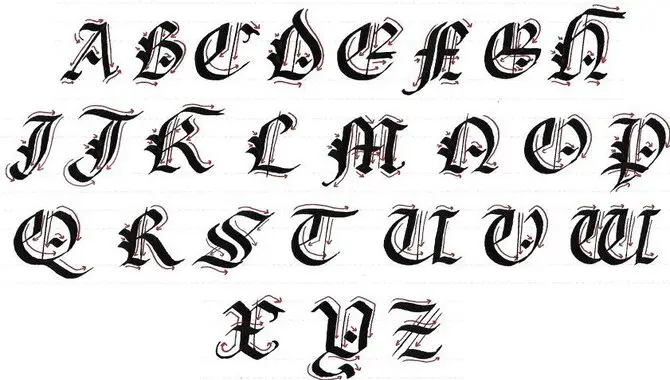
If you’re looking to add some edge and old-world charm to your designs, Gothic Fraktur Fonts might be what you need. These unique fonts are popular among designers and artists for their bold, ornate, and dramatic feel.
They are popular in various projects, from branding to editorial design, posters, and tattoos. Here we will explore why Gothic fonts are a great addition to your designs and showcase some of our top picks for Gothic Fraktur Fonts that can make your typography stand out.
We’ll also provide tips on optimizing these fonts in your designs and share resources for downloading and using these fonts. Get ready to add a touch of elegance, history, and drama to your designs with these gorgeous Gothic Fraktur Fonts.
Why Use Gothic Fonts?
Blackletter or Gothic fonts are a great way to add an edgy and interesting touch to any design. While “Gothic” and “Old English” are often used to describe Blackletter script, these terms are inaccurate. Blackletter calligraphy has a rich and fascinating history dating back to 1200 BC.
Blackletter script was influenced by the Gothic architectural style of many churches and cathedrals in the Middle Ages. Blackletter fonts are popular in punk, street art, and heavy metal design but are also becoming more common in mainstream design.
The blend of medieval influence and modern rebellion adds a unique touch to designs, making them stand out. Using Gothic fonts for design usually involves creativity and requires the design to adjust according to the font to get the best possible outcome. With a wide range of available options, you will find the perfect fit for your next project.
Gothic Fraktur Fonts You Need
Fraktur is a typeface that originated in the 16th century to update the old textual hands. Fraktur’s unique Gothic style makes it perfect for various designs, such as logos, posters, and brochures. The font family includes regular and bold variations, perfect for highlighting headers and important text.
Foundry Blonde Fraktur is a free interpretation of the Gothic theme and is an excellent fit for advertising. However, it’s important to note that the Fraktur typeface is not a built-in Powerpoint font. And it will need to be downloaded and installed to be used. Fraktur is easy to read, and its unique style can add a touch of Gothic elegance to any design project.
Fonts For Headlines
The creators developed Gothic Fraktur fonts as a more legible alternative to textual hands in the 16th century, and they have a rich history. While Fraktur is not commonly used for simple text, it is still popular for decorative typesetting, especially for headlines and pub signs.
Blonde Fraktur is a Gothic-themed Cyrillic font that can make text look like a Gothic script in any language. However, it is important to note that Fraktur was common in German-speaking countries and some other European countries until the late 19th century when Antiqua replaced it.
The move to Antiqua as a symbol of the classicist age and cosmopolitanism in Europe was highly debated and known as the Antiqua-Fraktur dispute in Germany. Despite this controversy, Gothic Fraktur fonts remain popular among designers and those looking to create a unique visual aesthetic for their projects.
Fonts For Body Text
You must check out a few if you’re looking for Gothic Fraktur fonts to add to your collection. Foundry Blonde Fraktur is a Gothic-inspired font perfect for advertising beer, sausages, pubs, and other places where Gothic scripts are commonly used.
In the 15th century, the Fraktur typeface rose in popularity in Germany, and Protestants used it for German texts, but Antiqua dominated throughout Europe. Leonhard Wagner and Hieronymus Andreae developed a new typeface in the 16th century with fractured strokes laid out at many angles for better legibility.
The Fraktur Font Family offers regular and bold fonts that serve various purposes. And if you’re looking for a Gothic Fraktur font suitable for body text, you might want to check out Gothic Fraktur. Its broken and fractured style sets it apart from Antiqua typefaces, making it a unique and eye-catching addition to any project.
Fonts For Headings And Subheadings
Gothic Fraktur Fonts are a great option for giving your headings and subheadings a unique and distinctive look. People created Fraktur in the 16th century due to difficulty with handwriting. Germans used it and marked a distinction between Catholic and Protestant texts.
Although the Antiqua font became more popular in Europe after its rise in the 15th and 16th centuries, Fraktur had a resurgence during the Third Reich before falling out of style again after World War I. Today, Germans still use Fraktur, but throughout Europe, Antiqua is more commonly used.
If you are looking for Gothic Fraktur Fonts, many options are available. Some popular choices include Blackletter, Old English, and Textura. These fonts are ideal for giving your headings and subheadings a unique and distinctive look to help them stand out.
5. What Is The Best Font For Gothic Fonts?
Ans. There is no one-size-fits-all answer to the question of the best font for gothic designs. It depends on the purpose and tone of your project. Blackey is a modern medieval Gothic font for marketing and invitations that can add edge and interest. Black Cameo Gothic font offers over 525 glyph options, making it ideal for tattoos and clothing.